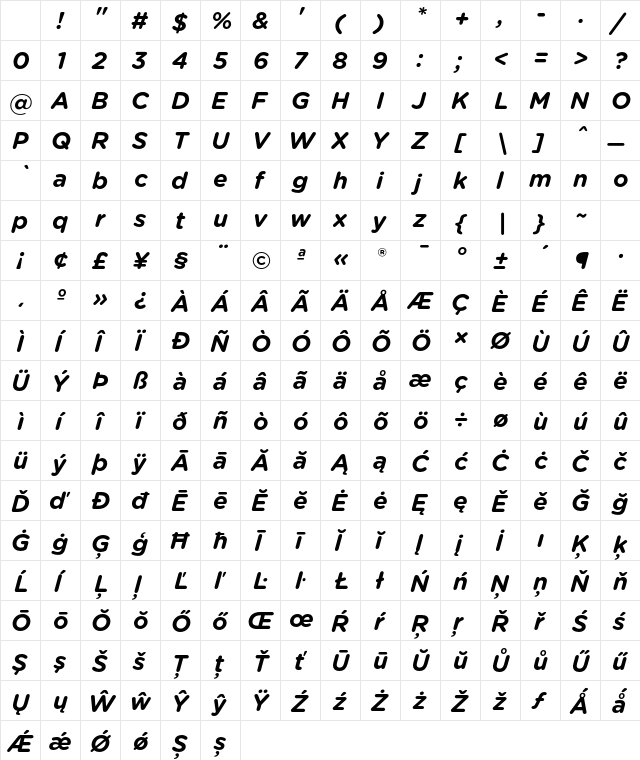
Complete Gotham Rounded Bold Italic glyph index. Displaying only characters natively supported by Gotham Rounded Bold Italic font.
Gotham Rounded softens its letterforms with rounded terminals, giving it an approachable, friendly quality that works well in consumer-facing and digital contexts. The slanted form adds forward momentum and visual energy. Its bold stroke weight gives it real presence on the page.
Font Pairing: Pairs well with a rounded or humanist sans for body copy, maintaining the friendly tone without relying on Gotham Rounded to carry extended reading.
Pro Tip: Use Gotham Rounded for UI elements, app interfaces, and anywhere a friendly, approachable tone needs to be maintained without sacrificing clarity.